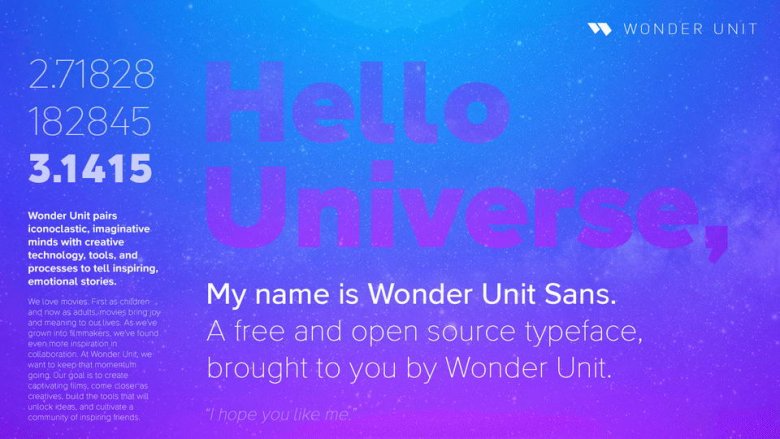
Wonder Unit Sans Font Family
Introducing Wonder Unit. It is an created by Wonder Unit. Wonder Unit is a modern serif font family whose design refers us to the style of modern sans serif. Wonder Unit has been crafted from scratch with a structural logic of its own: a fusion of pure geometry and optical balance. Wonder Unit is suitable for Logo, greeting cards, quotes, posters, branding, name card, stationary, design title, blog header, art quote, typography